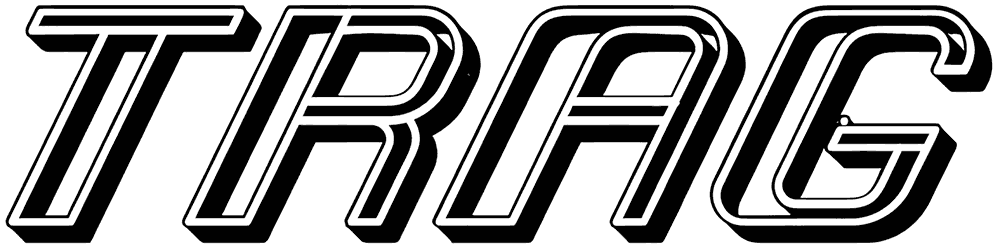
Trag Font
Let’s meet a distinct offer with a bold and 3D style named Trag. This techno font consists of a hollow and italic face that can be a captivating show for your words. There is no backup of lowercase, numbers, or punctuation, but still, this Y2K font would be a unique choice for various designs such as covers, titles, logos, wordmarks, and so forth.